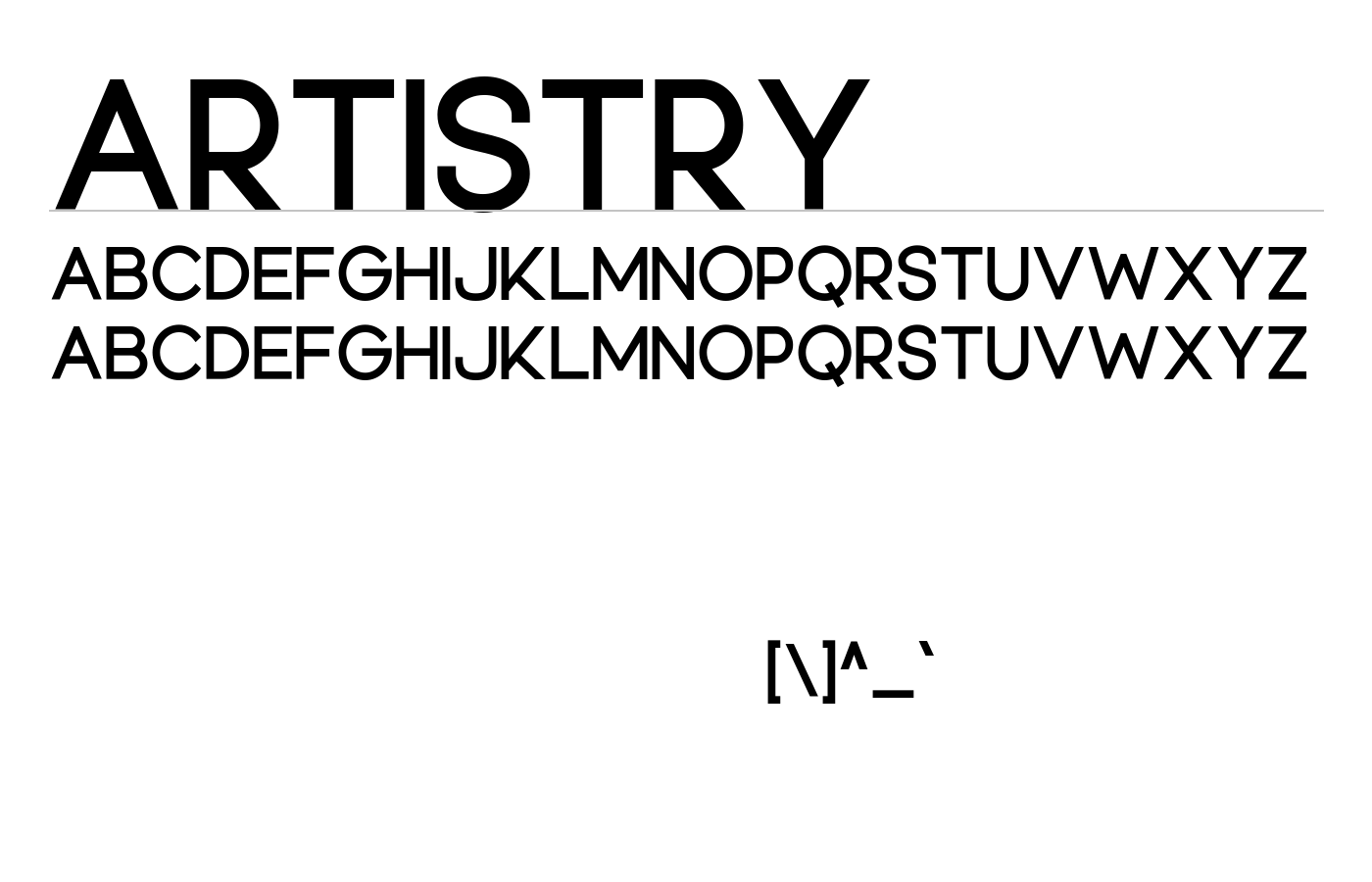
Artistry Font is a clean, modern sans serif characterized by its bold weight, geometric shapes, and high x-height, offering excellent readability. Its sharp, uniform strokes and well-balanced letterforms give it a contemporary and professional feel, perfect for branding, headlines, and digital use where clarity and impact are key. This font works especially well for businesses and creative projects aiming to convey sophistication with a minimalist edge.
Artistry Font
About Artistry Font
| Font family | Artistry Font |
| Designer | Frada Nanda |
| Trademark | NanDesign Foundry |